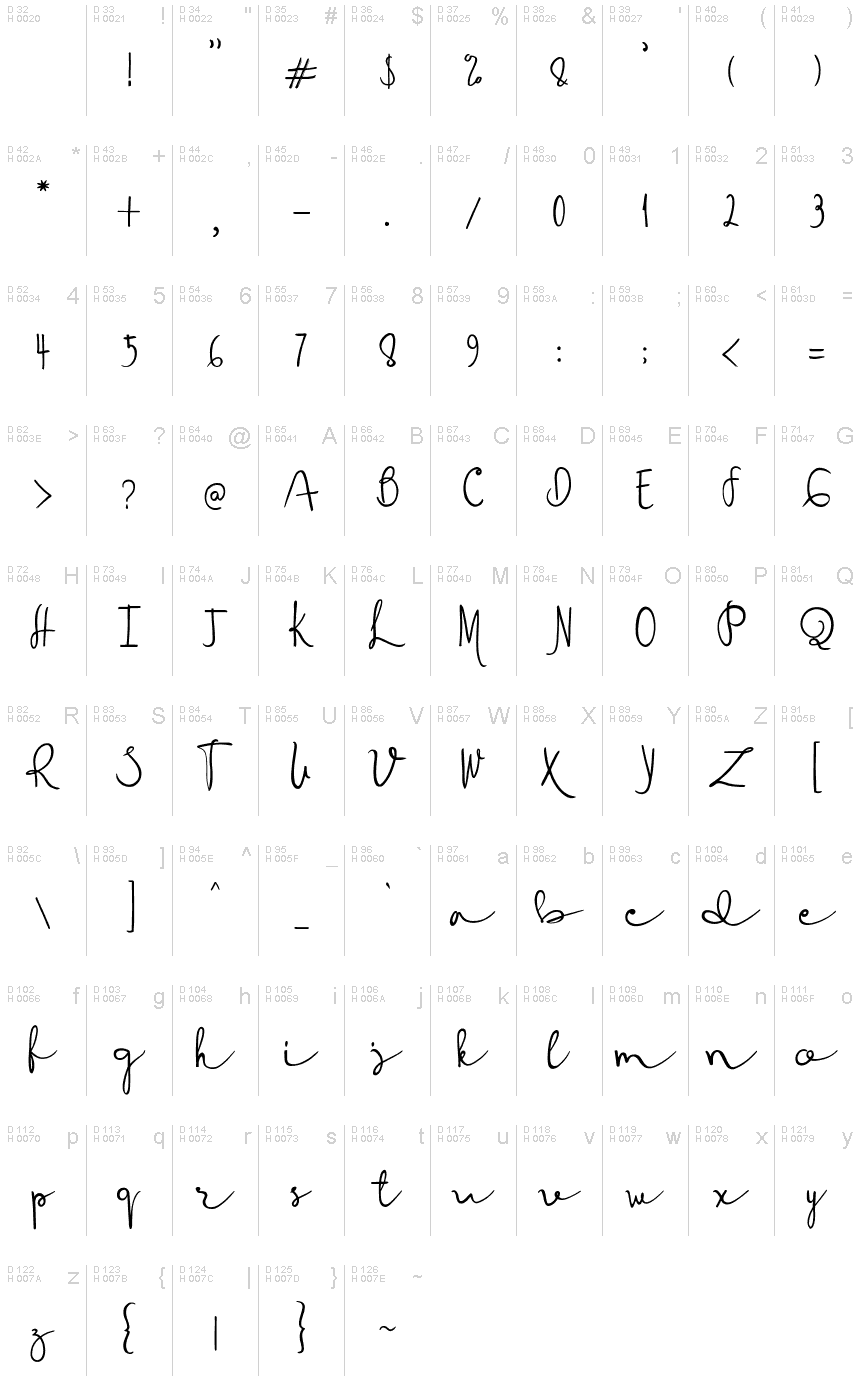
Deanisa
Deanisa, the mesmerizing creation by Gie Studio, is a captivating handwritten font that exudes elegance and charm. Its semi-light weight adds a delicate touch to any project, while the semi-expanded width ensures readability and legibility. With its graceful strokes and unique personality, Deanisa is perfect for a wide range of projects. Whether it's creating stunning wedding invitations, delicate fashion logos, or inspiring quotes for social media posts, this font will leave an indelible impression on your audience. Let Deanisa breathe life into your designs and watch them come alive with beauty and sophistication.